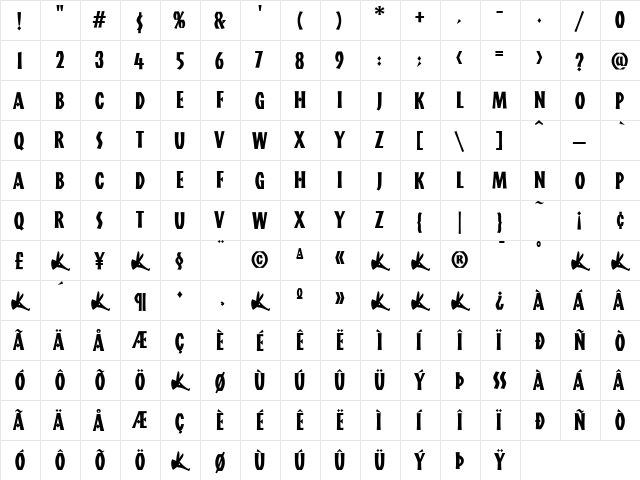
Aardvark Regular
Design Context for Aardvark Typeface
Aardvark is a composed and adaptable typeface that performs quietly and consistently across a wide range of design contexts.
Pro Tip: Pair Aardvark with a font of contrasting weight or personality to build a more expressive typographic hierarchy.